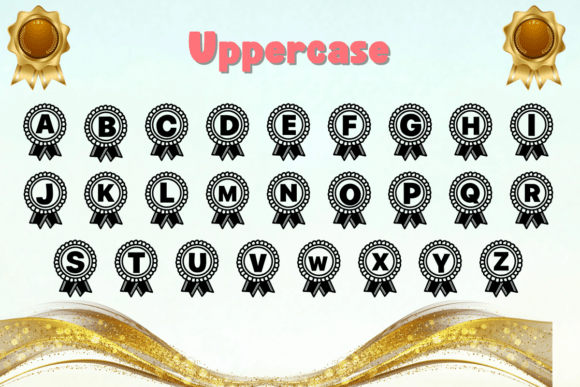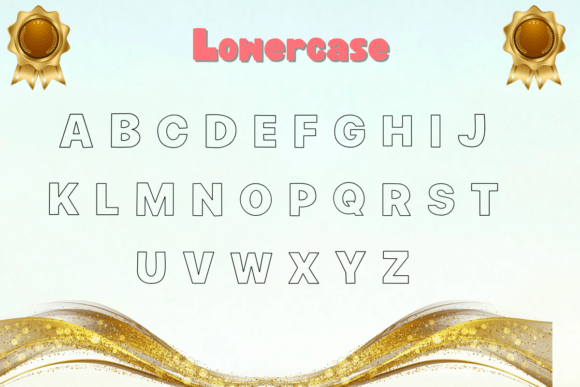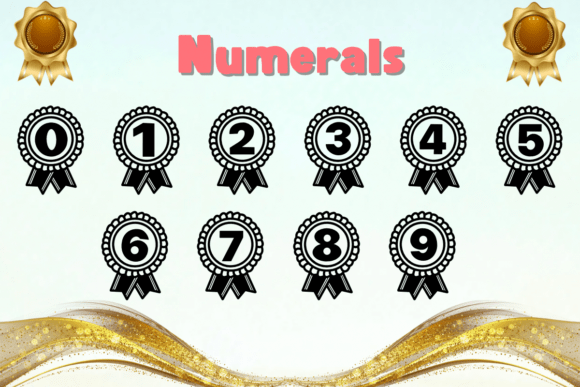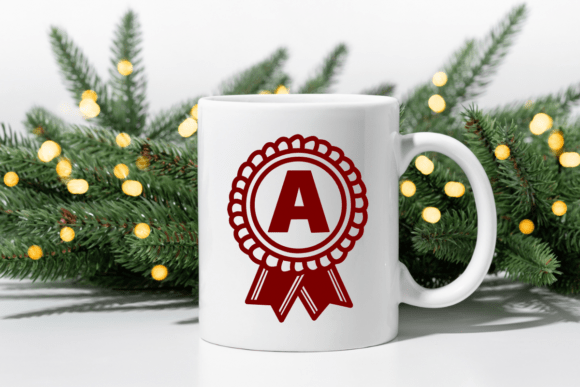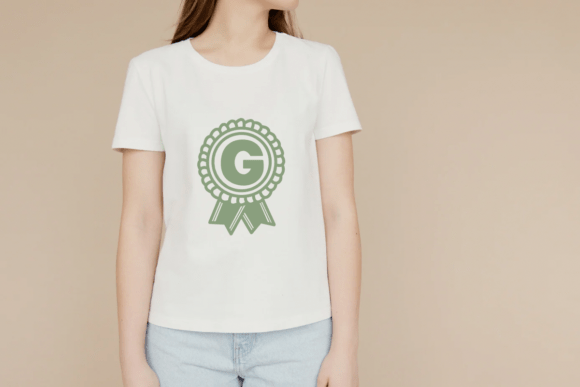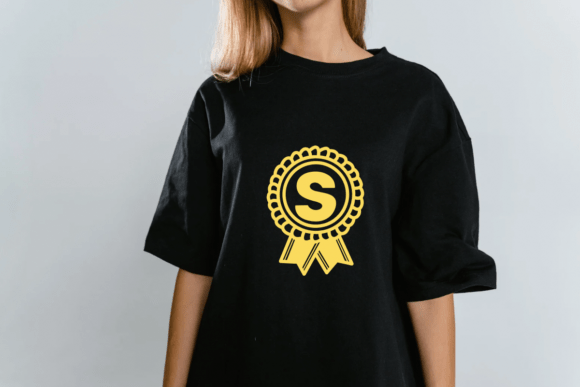
Introduction to Fon Award Medal Font
Remember that moment when you won a prize at a school fair or a local competition? The feeling of pride and accomplishment is still etched in your memory, isn’t it? That’s exactly what the Fon Award Medal Font aims to capture – the thrill of victory and the joy of achievement. This playful decorative font is designed to add a fun, winning touch to any creative project, making it a valuable resource for designers.
With its unique design where each letter is nestled inside an award medal emblem, the Fon Award Medal Font is a high-quality design resource that can elevate any project. Whether you’re creating certificates, event posters, sports banners, or school projects, this font is sure to impress. Plus, it’s available for free download, making it an excellent choice for designers on a budget.
One of the standout features of the Fon Award Medal Font is its transparent background, allowing you to layer it over any image or design element. This level of flexibility makes it an ideal choice for designers who want to add a touch of sophistication to their creative projects. So, why not give the Fon Award Medal Font a try and add a winning touch to your next design?
Fon Award Medal Font
- Unique medal-inspired design perfect for award certificates, trophies, and other recognition materials
Honest Review: Fon Award Medal Font
I recently stumbled upon the Fon Award Medal Font while searching for a design resource to elevate my creative project. This font caught my attention, and I decided to give it a try.
- High-quality design: The Fon Award Medal Font boasts a crisp and clear design that’s perfect for showcasing achievements.
- Transparent background: This feature makes it easy to overlay the font on any image or background, giving me more flexibility with my design.
- Limited customization options: While the font looks great, I found it difficult to make significant changes to the design.
- Not ideal for complex projects: The Fon Award Medal Font might not be the best choice for intricate or multi-layered designs.
Overall, I’m impressed with the Fon Award Medal Font’s design quality and ease of use. However, its limitations might make it less suitable for complex projects or those requiring extensive customization. Nevertheless, it’s an excellent resource for simple designs and a great addition to any designer’s toolkit.
Getting the Most Out of It
To get the most out of the Fon Award Medal Font, use it in combination with other design resources, such as images or graphics. Experiment with different font sizes, colors, and alignments to create a unique look. The font’s high-quality design makes it perfect for creative projects that require a professional touch.
The Fon Award Medal Font is perfect for a variety of creative projects, including award ceremonies, sports events, and marketing materials. Its transparent background and high-quality design make it ideal for overlaying on images or backgrounds. You can also use the font to create custom logos, graphics, or text elements for your design projects.